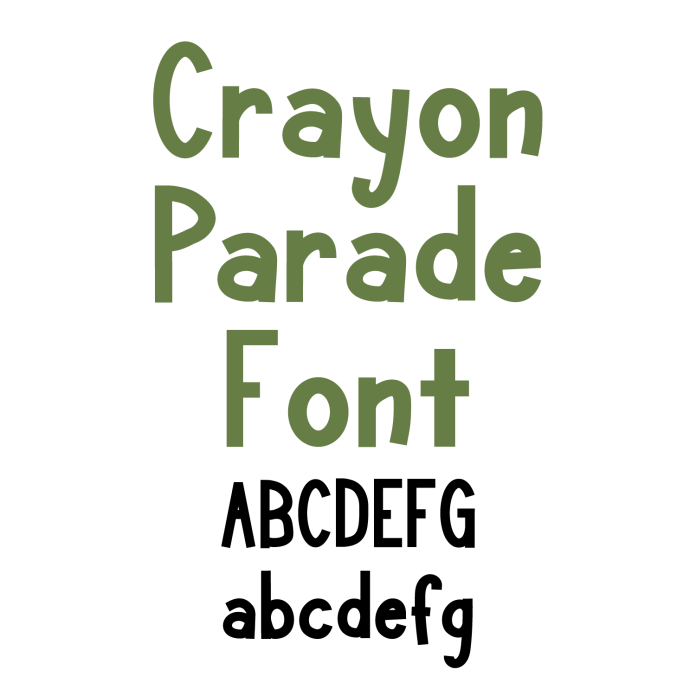
Introducing Crayon Parade Font—a delightful cute handwritten sans serif font that brings a burst of creativity to all your crafting projects! With its playful, hand-drawn style and rounded edges, Crayon Parade is perfect for stickers, labels, greeting cards, party decorations, scrapbooking, and custom gifts. Designed for easy, smooth cuts with your cutting machine, this font is ideal for vinyl projects, printables, and DIY crafts. Whether you're crafting for kids, teachers, or fun home decor, Crayon Parade Font adds a joyful touch to every design. Download it today and let your creativity march to the beat of fun!